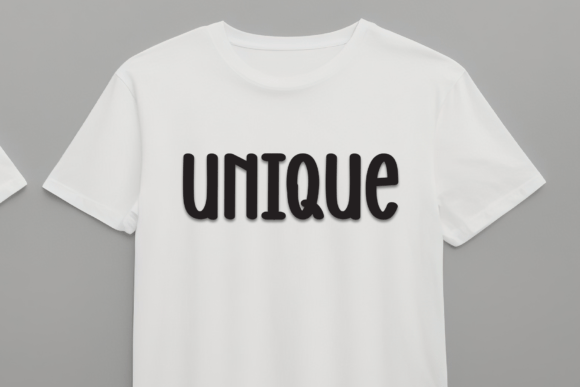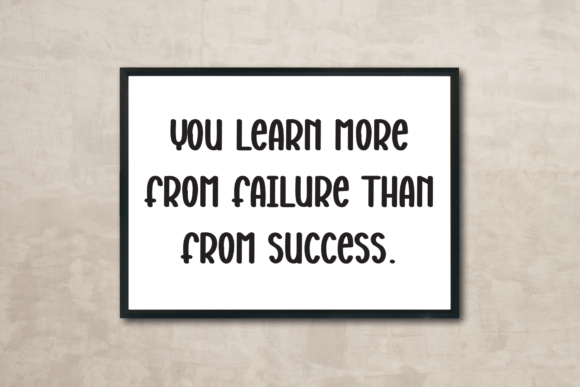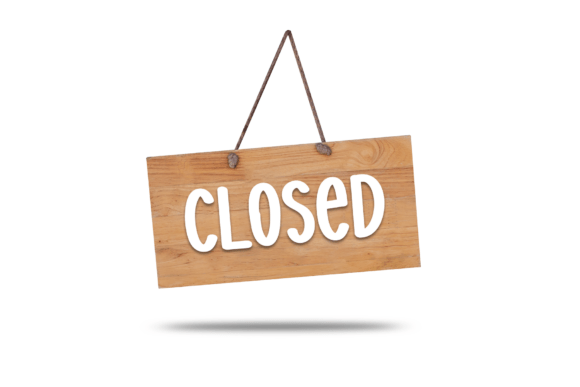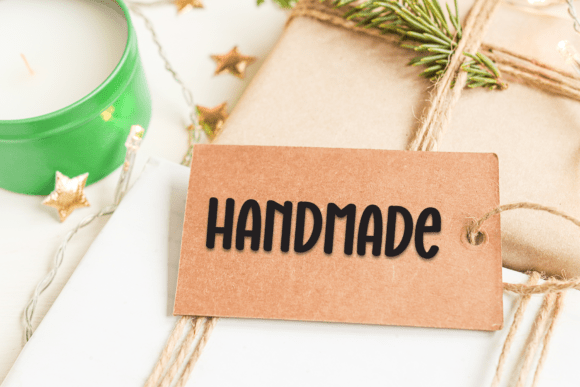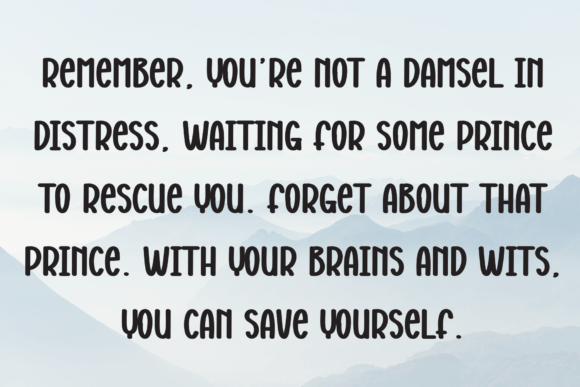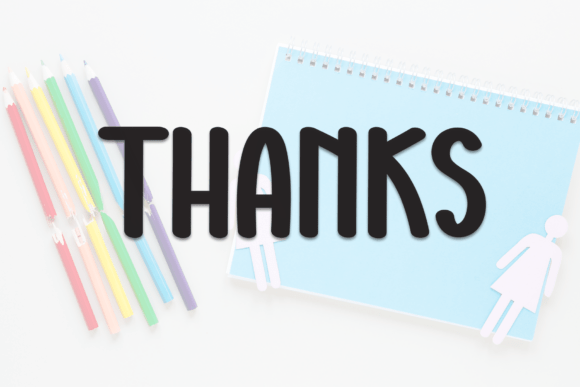
The Family Notepad Font: A Playful and Versatile Display Font for Creative Projects
I’ll never forget the time I was working on a children’s book project, and I just couldn’t find the right font to bring the story to life. The client wanted something playful, yet professional; fun, yet readable. I scoured the internet, tried out dozens of fonts, and still, nothing seemed quite right. That was until I stumbled upon the Family Notepad font. With its unique blend of playfulness and sophistication, it instantly clicked with me, and I knew I had found the perfect fit.
So, what makes Family Notepad so special? Here are a few things that I absolutely love about this font:
- ✨ Playful yet professional: Family Notepad strikes the perfect balance between fun and sophistication, making it ideal for creative projects that need a bit of personality.
- ✅ Easy to read: The rounded, tall letterforms and smooth strokes make it a joy to read, even at smaller sizes.
- ✅ Versatile: From children’s books to logos, invitations, and social media graphics, Family Notepad can adapt to a wide range of applications.
Of course, no font is perfect, and Family Notepad has a few minor quirks:
- ⚠️ Limited use in very formal contexts: While Family Notepad is versatile, it’s not the best fit for very formal or traditional projects, such as academic papers or corporate reports.
- 🤔 Some glyph limitations: While the font has a wide range of glyphs, some users may find that it lacks certain specialized characters.
The Story Behind Family Notepad
According to the font’s designer, Family Notepad was inspired by the classic notebooks of childhood. The designer wanted to create a font that captured the sense of playfulness and creativity that came with writing in a notebook. With its rounded letterforms and smooth strokes, Family Notepad is the perfect embodiment of that feeling.
| What is the best use for Family Notepad? | Family Notepad is perfect for creative and casual projects, such as children’s books, school projects, logos, invitations, planners, and social media graphics. |
| Is Family Notepad easy to read? | Yes, Family Notepad is designed to be easy to read, with rounded letterforms and smooth strokes that make it a joy to read. |